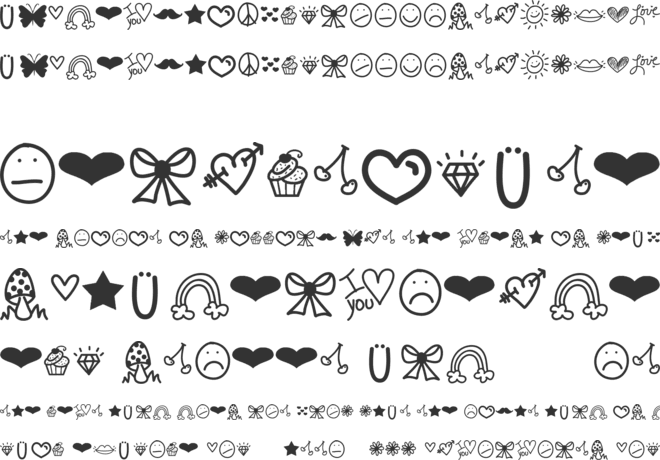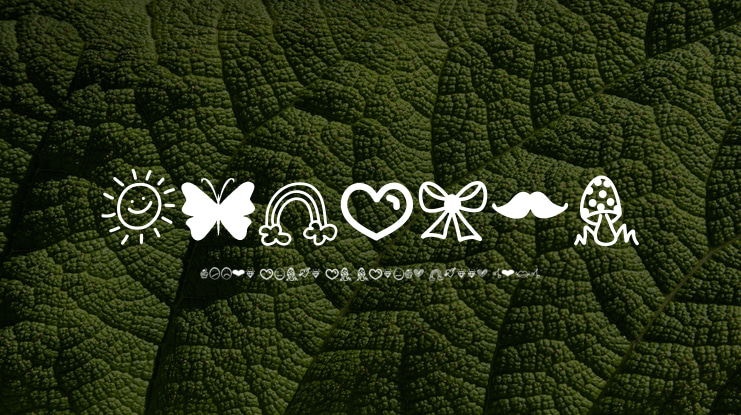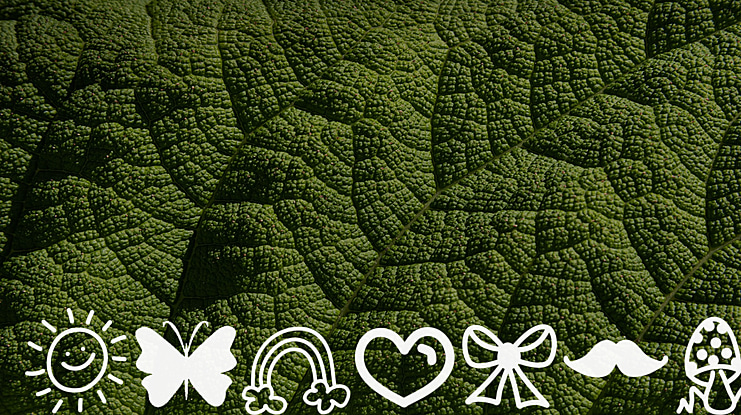
VBdings Font
These are just a FEW of the lil doodles and vectors that I have made (drawn). If you all like these, let me know and I will make more fonts like this. I just thought this would be fun. These are great to make photoshop / paint shop pro brushes with. You may use these on any non commercial site for free, or to make your FREE graphics with as long as you credit http://bythebutterfly.com If you want to use them for commercial use, you need to purchase a license here: http://bythebutterfly.com/shop.php